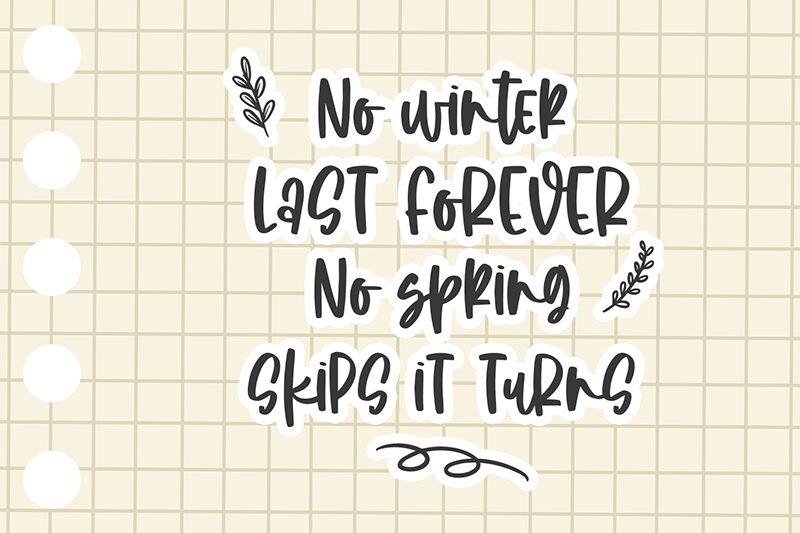
Winter End is a handwritten font designed by Panggah Laksono at Abo Daniel Studio. With its narrow width, it is perfect for adding a personal touch to projects such as invitations, cards and logos.